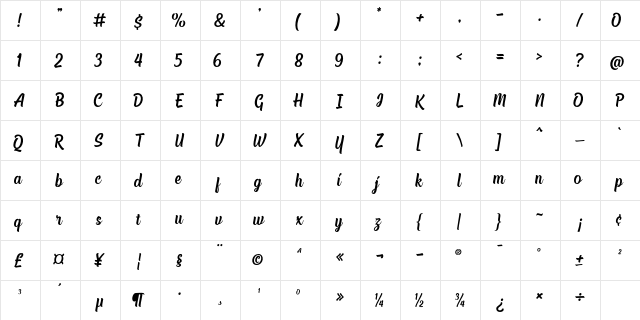
Chuck Noon Script Regular
| Foundry | Twicolabs Fontdation |
| Designer | Twicolabs Fontdation |
Design Context for Chuck Noon Script Typeface
Chuck Noon Script brings a calligraphic fluidity to the page — its connecting strokes and expressive curves give it an unmistakably human quality.